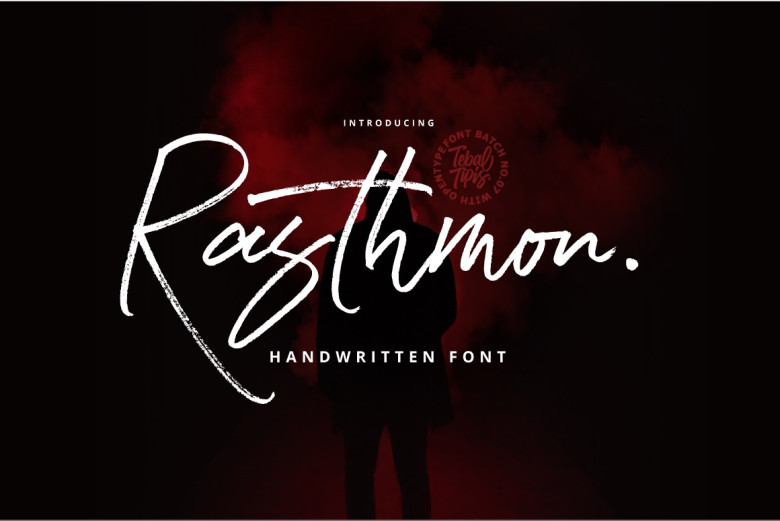
Rasthmon Font
Rasthmon offers an exquisite handwritten typeface. This can be used for branding, product packaging and labeling as well as invitations, quotes, t-shirts, posters, labels and logos.
Rasthmon Handwritten Script Font